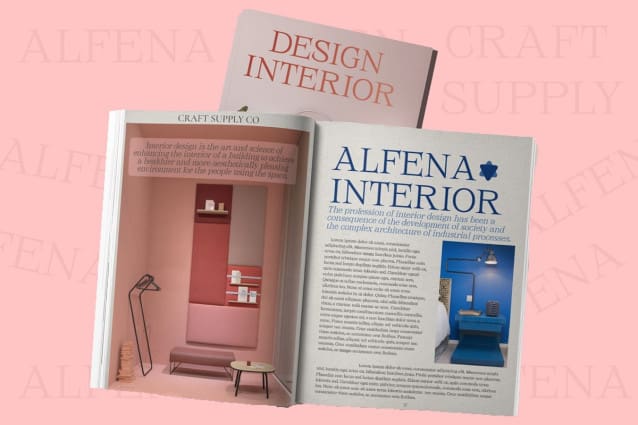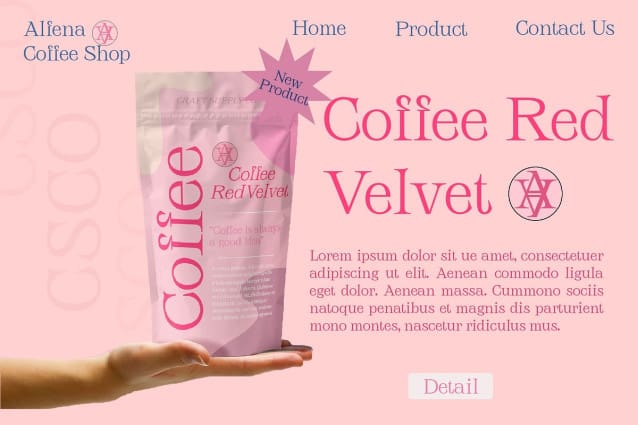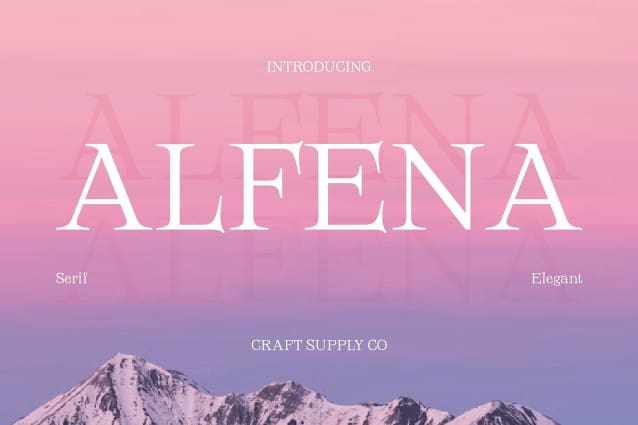
Alfena Font
Alfena Font: Modern Elegance with a Touch of Cuteness. Cute Serif Tweak Alfena boasts a cute serif tweak that adds a delightful charm to its characters. This subtle modification infuses the font with a playful and endearing quality.
Moderate Contrast With a moderate contrast, This font strikes the perfect balance between readability and style. Its well-defined strokes ensure clarity while maintaining visual appeal.
Modern Vibes This font exudes modernity with its sleek and contemporary design. Its clean lines and refined curves reflect a sophisticated aesthetic that is perfect for various design projects.
Beauty Vibes The font radiates beauty with its graceful curves and elegant proportions. This font captures attention effortlessly, conveying a sense of refinement and sophistication.
Charming Blend of Modernity and Elegance This font cute serif tweaks, moderate contrast, and modern beauty vibes to create a font that is both charming and stylish. Its versatility makes it suitable for a wide range of design applications, from branding to editorial projects.